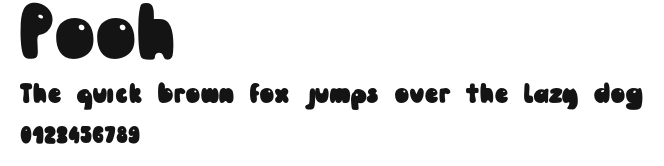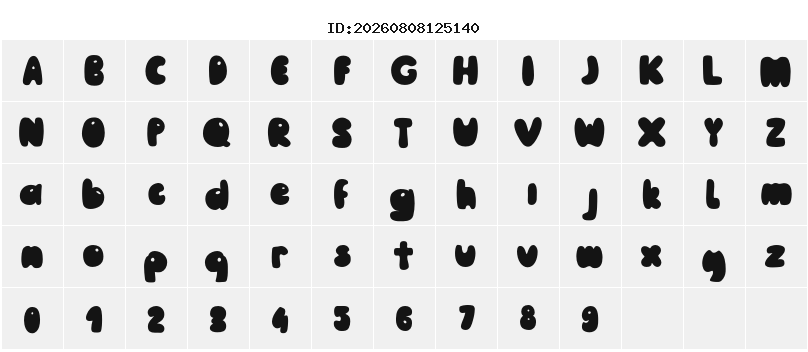
• Font Name: Pooh
• Designer: Mai Le
• Description: Handwriting
About Pooh.otf
Pooh.otf is a modern, elegant sans-serif font designed for ultimate readability and visual harmony. Perfect for branding, headlines, web design, and print materials.